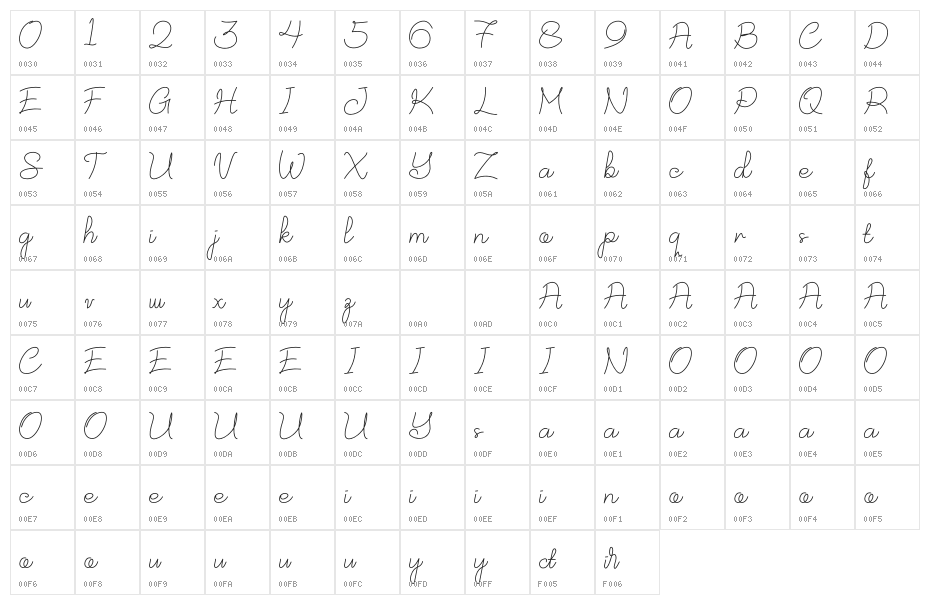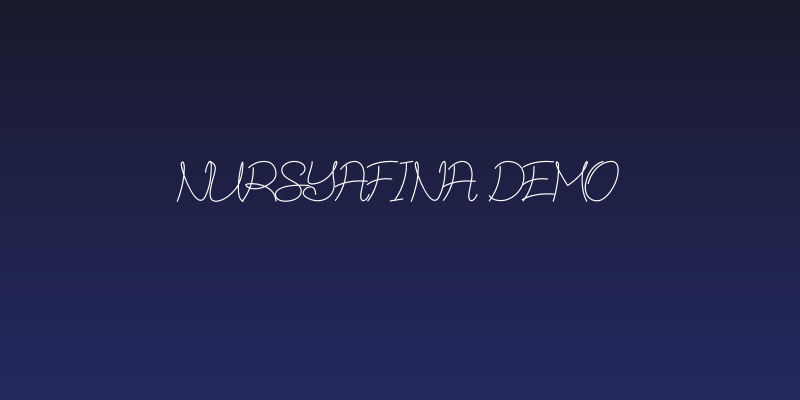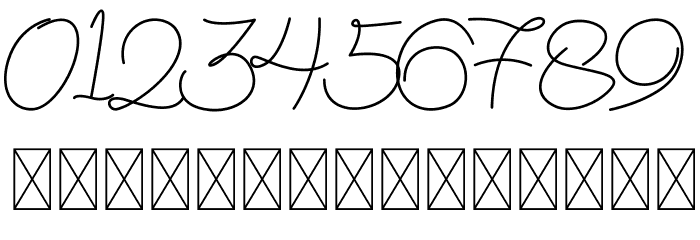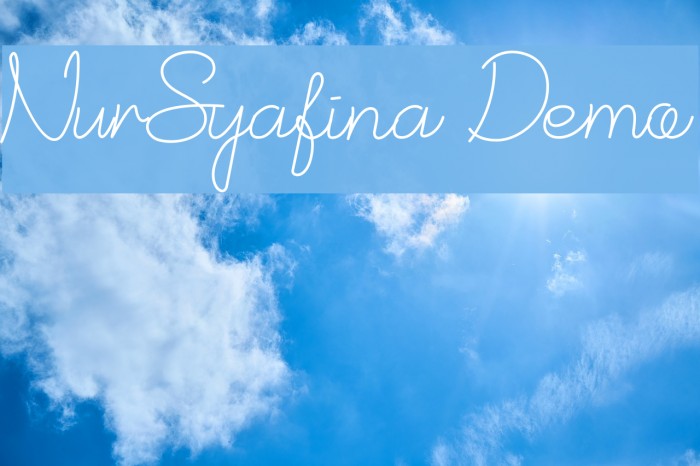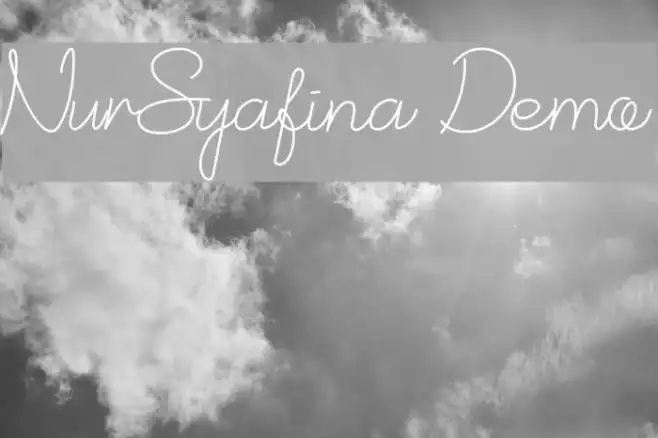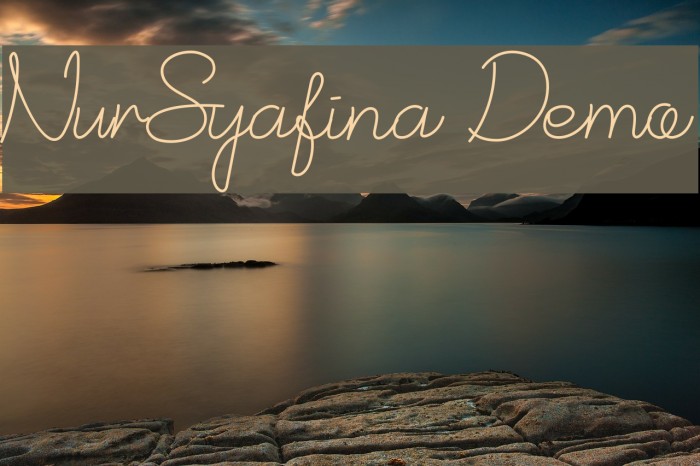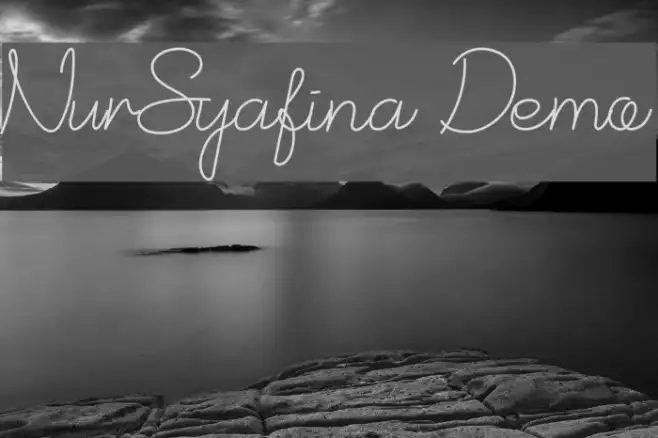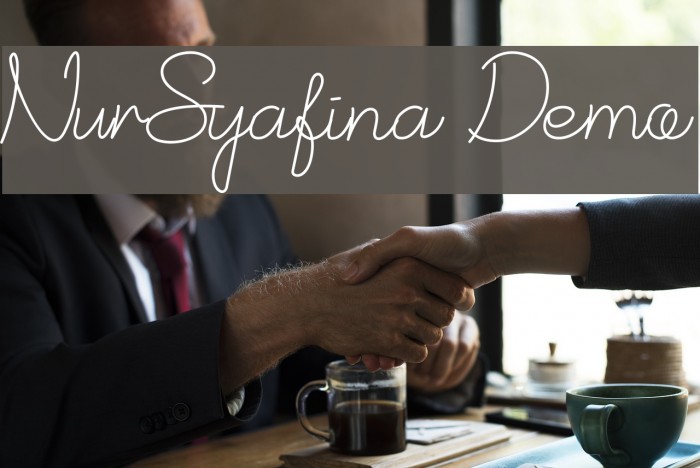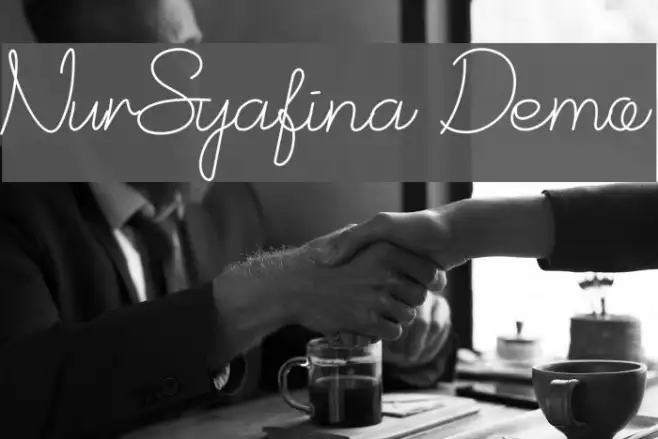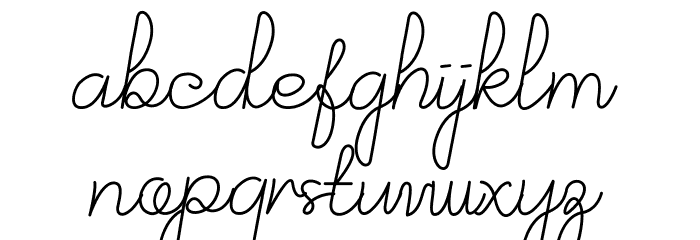
NurSyafina Demo Font
NurSyafina Demo Description
This font features a delicate and flowing script style, characterized by its elegant and continuous strokes that mimic the fluidity of handwriting. The uppercase letters are slightly more structured, while the lowercase letters exhibit a more pronounced cursive flair. The numerals maintain the same graceful curves, ensuring a cohesive look across all characters. The overall appearance is sophisticated and artistic, making it suitable for projects that require a touch of elegance and personal expression.
| Overall Style | Elegant |
| Use Case | Logos, Invitations, Artistic projects |
| Proposed Projects | Ideal for wedding invitations, greeting cards, personal branding, and artistic projects that require a touch of elegance. |